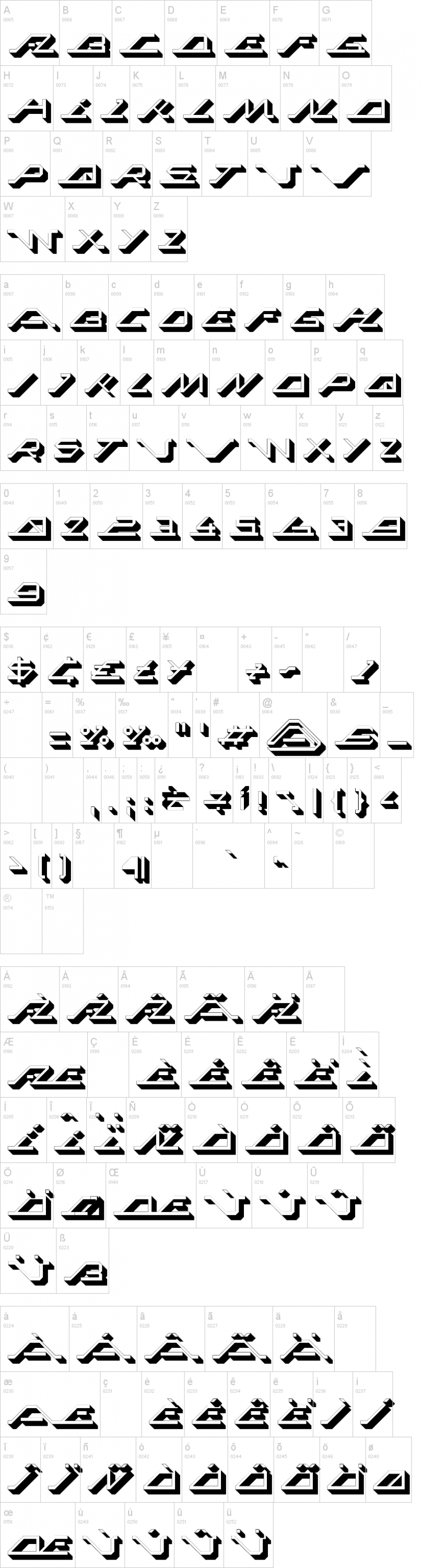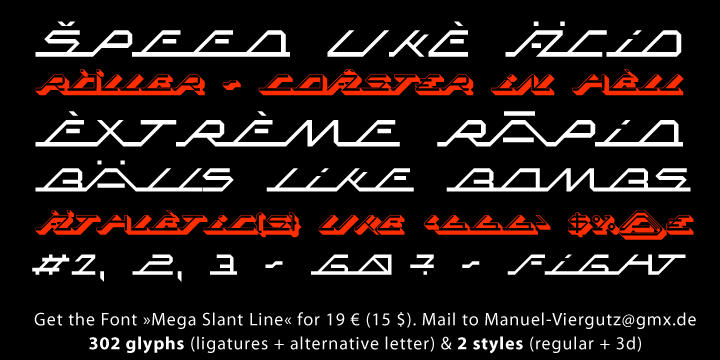
Шрифт Mega Slant Line
Headline Font / Display Font / Sci-Fi Font "MEGA SLANT LINE"
OpenType Font with 302 glyphs - alternative letters and ligatures (with accents & ) & 2 styles (regular & 3d)